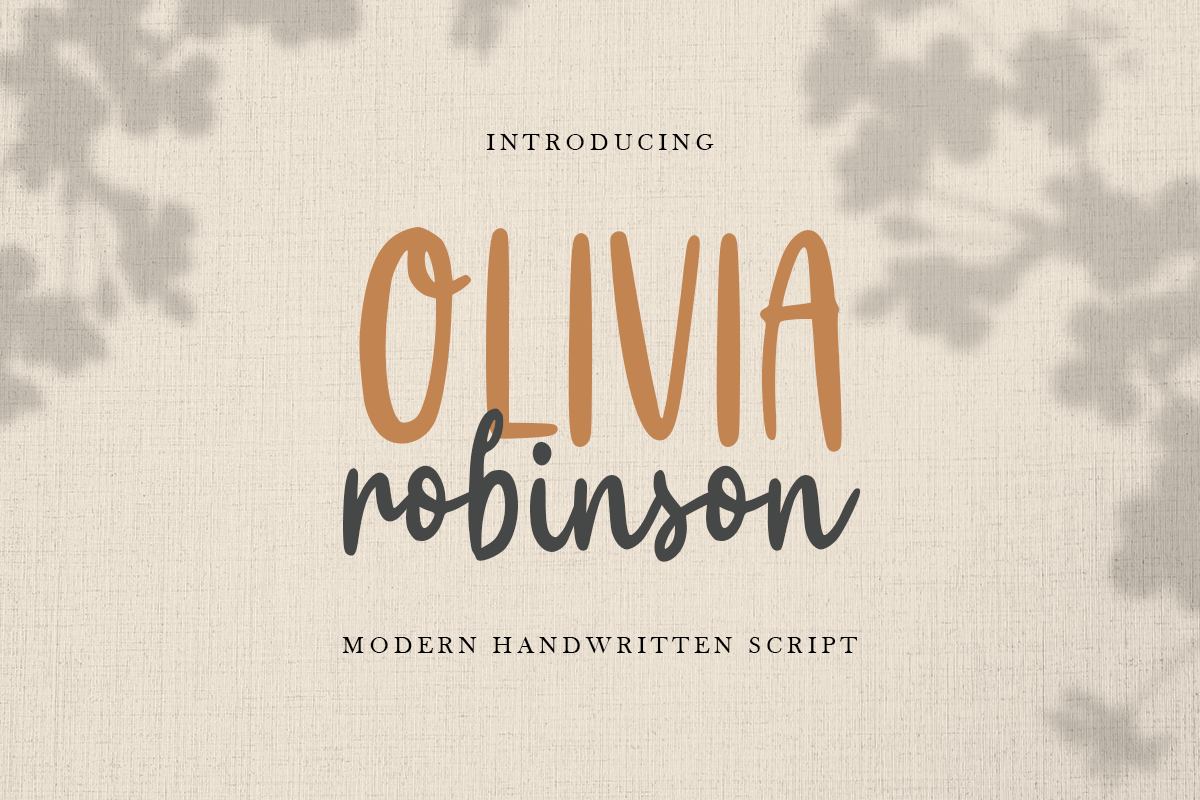
Olivia Robinson
-Modern Handwritten Font
Olivia Robinson is a Handwritten Script font with natural, fun, modern, and enjoy style. This font crafted specials for funny-themed projects, ready to use on branding, Social Media, Logo, and Many more that needs charming touches.